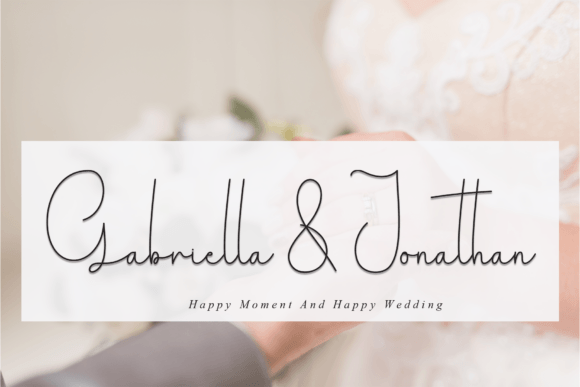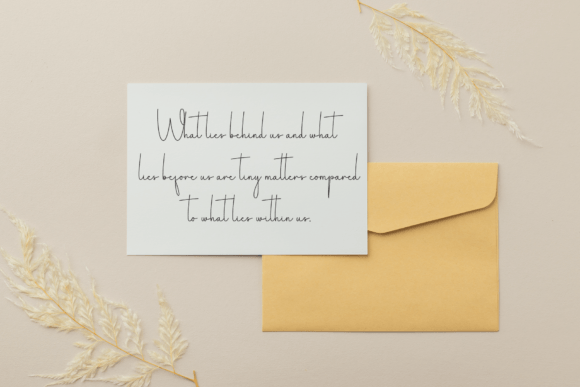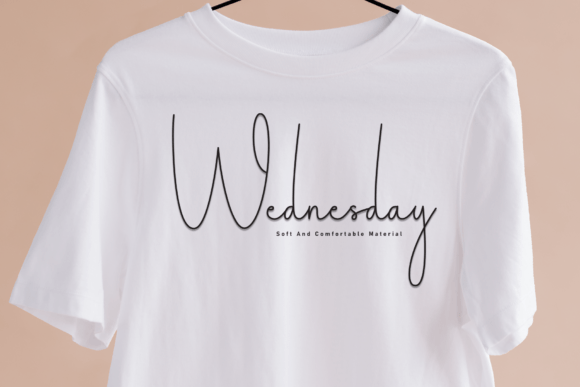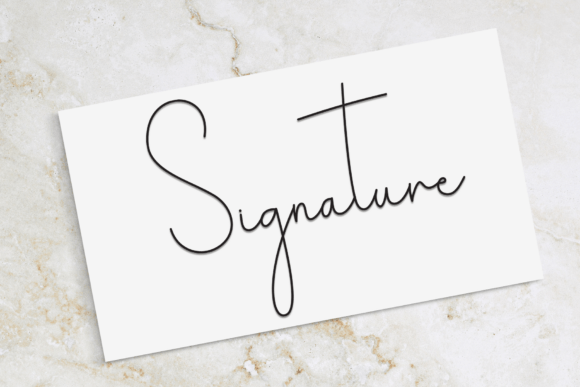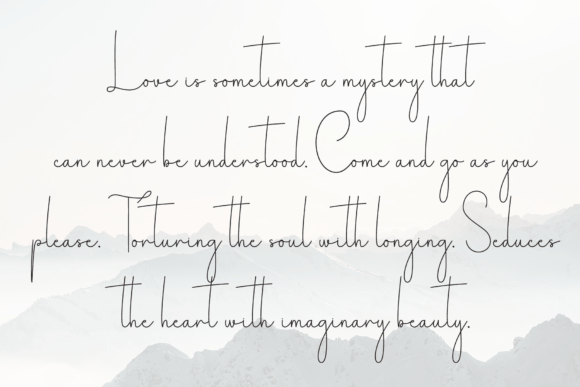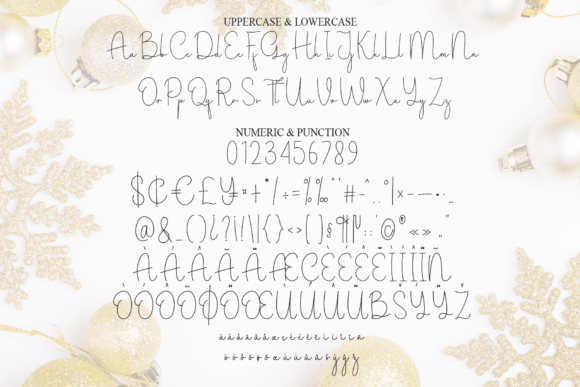
Happy New Year with Happy Newyears Font: Add a Dash of Whimsy to Your Designs!
As the clock strikes midnight on New Year’s Eve, the world welcomes a fresh start, filled with hope and promise. What better way to usher in the new year than with a font that’s as vibrant and cheerful as the celebrations themselves? Introducing the Happy Newyears Font, a charming and personable handwritten display font that’s sure to infuse your creative projects with an instant dash of visual sugar and warmth.
A Font that Speaks to You
The Happy Newyears Font is more than just a collection of letters; it’s an experience. Its adorable and playful quality makes it the perfect ingredient for sprucing up wedding invites, greeting cards, or any design endeavour that yearns for a spritz of fun. Whether you’re a designer, crafty DIY enthusiast, or simply someone who loves to get creative, this font is sure to capture your heart.
What Makes Happy Newyears Font So Special?
- Handwritten with Love: Each letter has been carefully crafted by hand, giving the font a warm, personal touch that’s impossible to replicate with generic fonts.
- Playful yet Elegant: The Happy Newyears Font strikes the perfect balance between playfulness and sophistication, making it suitable for a wide range of projects, from formal wedding invitations to fun birthday cards.
- Instant Visual Appeal: With its unique character and whimsical flair, this font is guaranteed to add a dash of visual interest to any design, making it stand out from the crowd.
- Versatile and Adaptable: Use it for digital projects, print materials, or anything in between – the Happy Newyears Font is designed to be versatile and adaptable to your creative needs.
Ideas to Get You Started
So, how can you use the Happy Newyears Font to elevate your designs? Here are a few ideas to get you started:
- Wedding Invitations: Add a touch of whimsy and romance to your wedding invites, save-the-dates, or thank-you cards.
- Greeting Cards: Create one-of-a-kind birthday, Christmas, or get-well cards that are sure to delight the recipient.
- Social Media Graphics: Use the Happy Newyears Font to create eye-catching social media graphics, quotes, or posters that showcase your personality.
- Branding and Packaging: Infuse your brand with a playful, approachable vibe by incorporating the Happy Newyears Font into your logo, packaging, or marketing materials.
Embracing the Delightful Charisma of Happy Newyears Font
The Happy Newyears Font is more than just a design element – it’s a way to express yourself, to add a dash of personality to your creations, and to connect with your audience on a deeper level. By embracing the delightful charisma of this font, you’ll be able to:
- Stand Out from the Crowd: In a world of generic fonts, the Happy Newyears Font is a breath of fresh air, setting your designs apart from the rest.
- Convey Your Personality: This font is a reflection of your creative spirit, allowing you to inject your designs with your unique personality and style.
- Make a Lasting Impression: With its playful, whimsical flair, the Happy Newyears Font is sure to leave a lasting impression on your audience, making your designs more memorable and engaging.
As we welcome the new year, let’s celebrate with a font that’s as vibrant and cheerful as the celebrations themselves. The Happy Newyears Font is the perfect way to add a dash of whimsy, warmth, and personality to your designs. So, what are you waiting for? Embrace the delightful charisma of this font, and let your creativity unfurl!